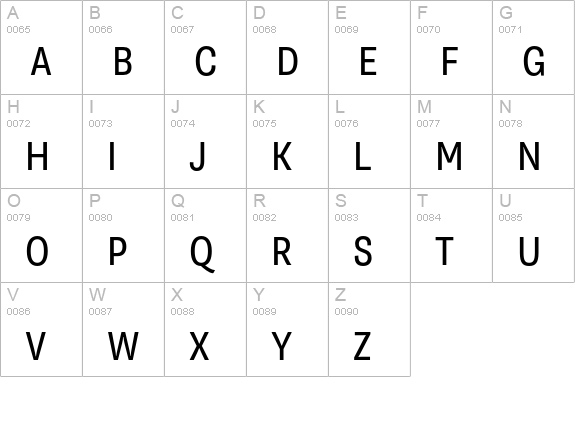
Supria Sans Cond Regular is the standard, neutral, condensed-width variant in the Supria typeface family \xE2\x80\x94 well suited to general body text, paragraphs, and standard typographic work.